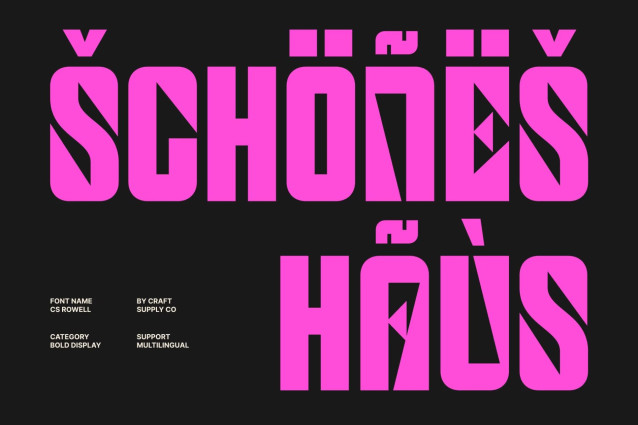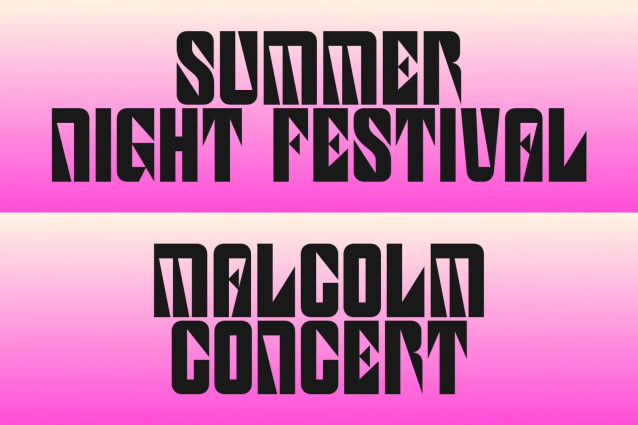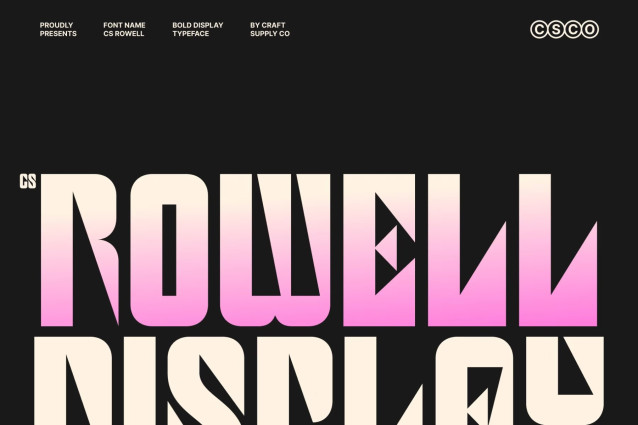
CS Rowell – Bold Display Font
CS Rowell – Bold Display Font: Where Industrial Precision Meets Futuristic Impact
Compact Proportions with Sharp Angular Cuts
This is a bold display font featuring compact proportions, sharp angular cuts, and a commanding visual presence. Its tightly constructed letterforms maximize impact while maintaining excellent readability, making it ideal for bold headlines and attention-grabbing branding. The angular details give each character a dynamic, high-performance appearance that feels modern and distinctive.
Futuristic Geometry with Industrial Character
Inspired by industrial design and futuristic aesthetics, this font combines clean geometric construction with precision-cut forms to create typography that feels powerful, technical, and forward-thinking. Its structured design communicates confidence and innovation, making it an excellent choice for projects that require a bold contemporary identity.